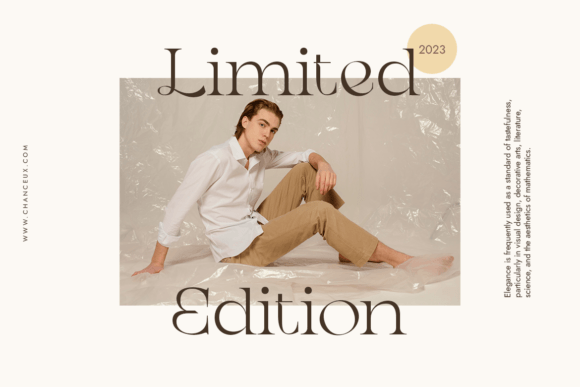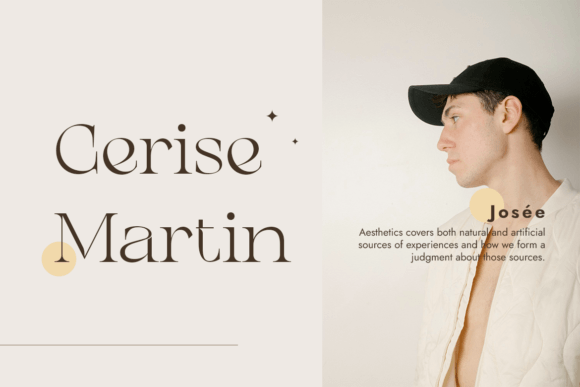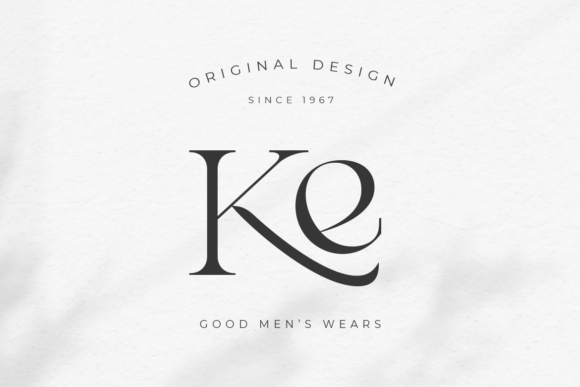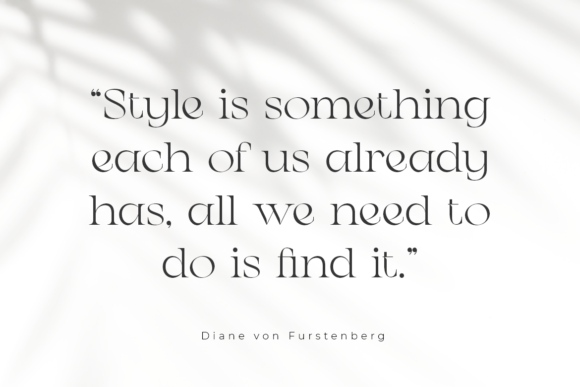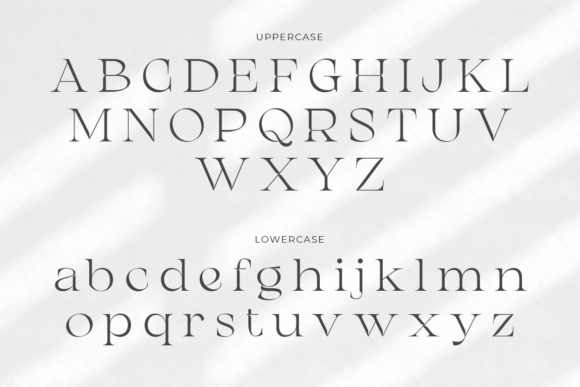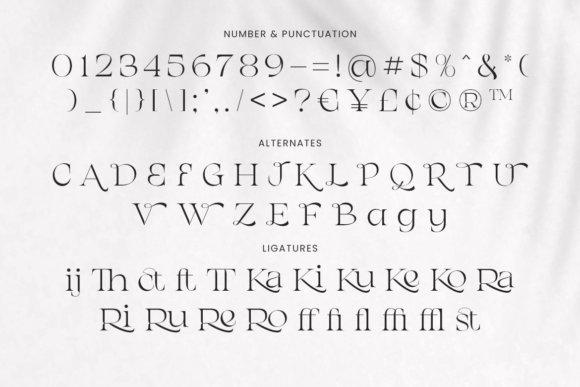
Introducing Chanceux: The Modern Stylish Font for Elegant Designs
In the world of typography, a good font can make all the difference in elevating a design project from ordinary to extraordinary. If you’re a designer or crafter looking for a stylish and refined serif typeface to add a touch of class and elegance to your work, look no further than Chanceux. This modern stylish font is perfect for a wide range of design projects, from branding and logos to wedding designs, social media posts, and more.
What is Chanceux?
Chanceux is a beautifully crafted serif typeface that exudes sophistication and refinement. Its polished look and elegant lines make it an ideal choice for designers who want to add a touch of luxury to their work. Whether you’re creating a brand identity, designing a wedding invitation, or crafting a social media post, Chanceux is the perfect font to help you achieve your design goals.
Key Features of Chanceux
So, what sets Chanceux apart from other fonts? Here are some of its key features:
- Refined and Polished Look: Chanceux has a sleek and sophisticated design that lends a touch of class and elegance to any design project.
- PUA Encoded: Chanceux is PUA (Private Use Area) encoded, which means you can access all of the glyphs and swashes with ease. This makes it easy to customize your designs and add unique touches.
- Versatile: Chanceux is perfect for a wide range of design projects, including branding, logos, wedding designs, social media posts, advertisements, product packaging, and more.
- Handwriting Taste: Chanceux has a unique handwriting taste that sets it apart from other serif typefaces. Its elegant lines and refined look make it perfect for designers who want to add a personal touch to their work.
Use Cases for Chanceux
Chanceux is a versatile font that can be used for a wide range of design projects. Here are some examples of how you can use Chanceux to elevate your designs:
- Branding Projects: Use Chanceux to create a sophisticated brand identity that reflects your company’s values and style.
- Logos: Chanceux is perfect for creating elegant and refined logos that make a lasting impression.
- Wedding Designs: Add a touch of elegance to your wedding designs, including invitations, programs, and decorations.
- Social Media Posts: Use Chanceux to create eye-catching social media posts that stand out from the crowd.
- Advertisements: Chanceux is perfect for creating elegant and sophisticated advertisements that grab attention.
- Product Packaging: Use Chanceux to create beautiful and elegant product packaging that reflects your brand’s style.
- Product Designs: Chanceux can be used to create stunning product designs that showcase your brand’s personality.
- Labels: Add a touch of elegance to your labels with Chanceux.
- Photography: Use Chanceux to create beautiful watermarks that add a touch of sophistication to your photos.
- Invitations: Chanceux is perfect for creating elegant and refined invitations for any occasion.
- Stationery: Use Chanceux to create beautiful and elegant stationery that reflects your brand’s style.
Why Choose Chanceux?
So, why should you choose Chanceux for your design projects? Here are just a few reasons:
- Unique and Elegant Design: Chanceux has a unique and elegant design that sets it apart from other fonts.
- Versatile: Chanceux can be used for a wide range of design projects, making it a great addition to any designer’s toolkit.
- Easy to Use: Chanceux is PUA encoded, making it easy to access all of the glyphs and swashes.
- High-Quality: Chanceux is a high-quality font that is designed to deliver exceptional results.
In conclusion, Chanceux is a modern stylish font that is perfect for designers and crafters who want to add a touch of elegance and sophistication to their work. With its refined and polished look, PUA encoding, and versatility, Chanceux is an excellent choice for a wide range of design projects. Whether you’re creating a brand identity, designing a wedding invitation, or crafting a social media post, Chanceux is the perfect font to help you achieve your design goals.